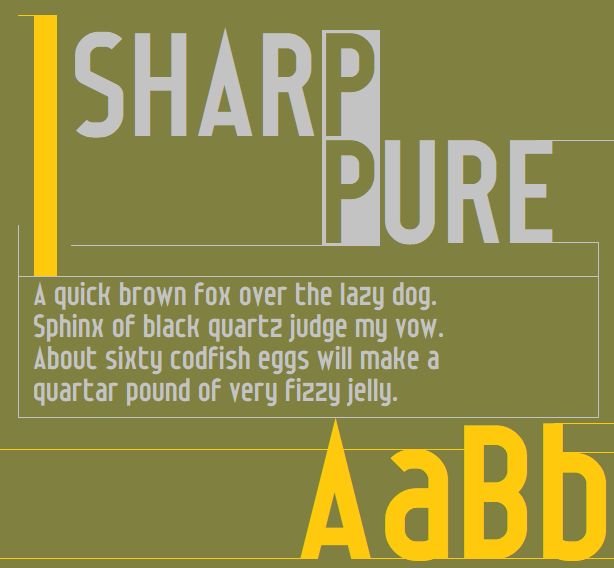
Decent mate... :)
:D
Very professional look!
Stunning!
nice A and &
Wow!
Everyone steals my ideas without me spilling the beans.  I think there is proof that there really is a stream of conciousness we can tap into (probably as we sleep and dream).  No, actually this is an even nicer version of the one I have locked away in my head.  Good job.  Maybe you will spur me on to get that project started, now.  ;)